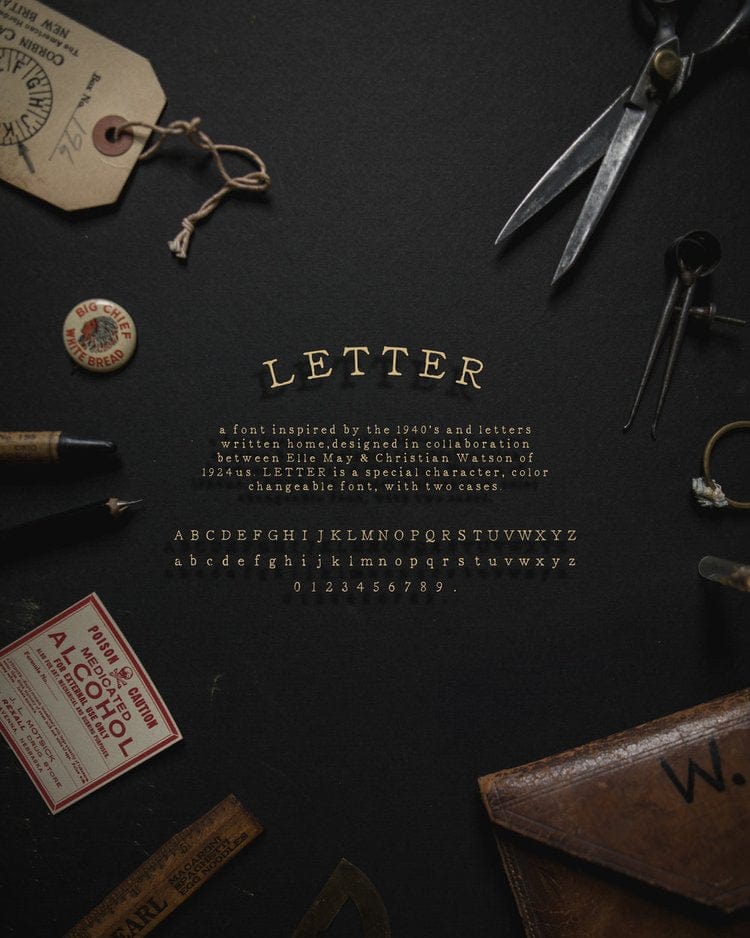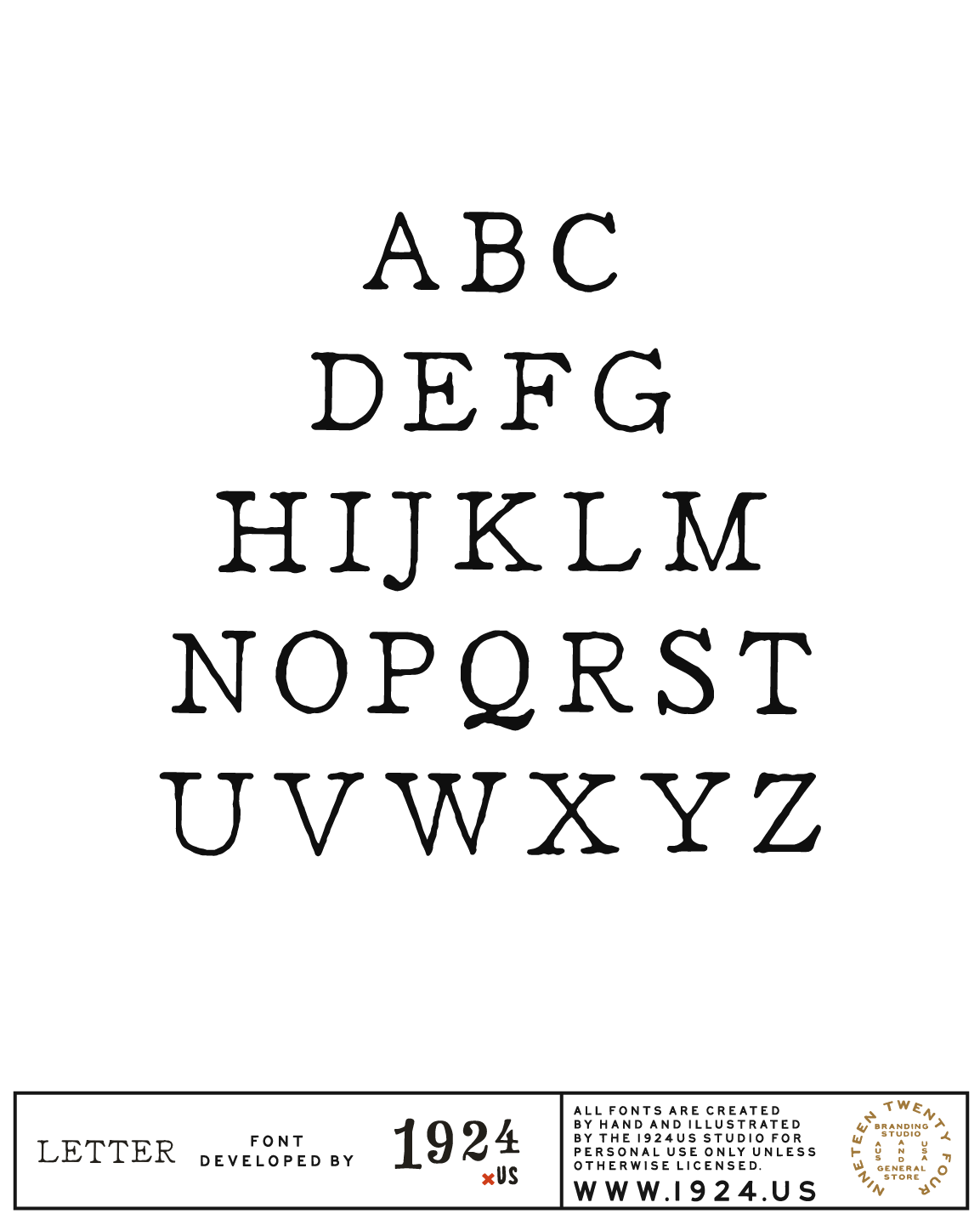
Letter font by 1924us
Inspired by old letters and the love for hand-written touch, Letter was developed as a brother to the Workman font. Thinner lines, and a cleaner look, this typeface was also developed in collaboration with Elle-May Watson of 1924us. The piece features two cases, color-changing and special characters.